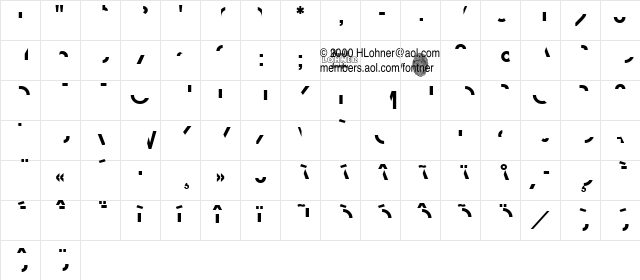
ThreePartySystemB Regular
| Copyright | Three Party System computer fonts v 1.0 00 Harold Lohner "  " members.aol.com/fontner Inspired by Barabara Butterweck's "Typeface F, Dear John" and Herb Lubalin's Avant Garde. Use layered with fonts A & C |
ThreePartySystemB is a composed and adaptable typeface that performs quietly and consistently across a wide range of design contexts.